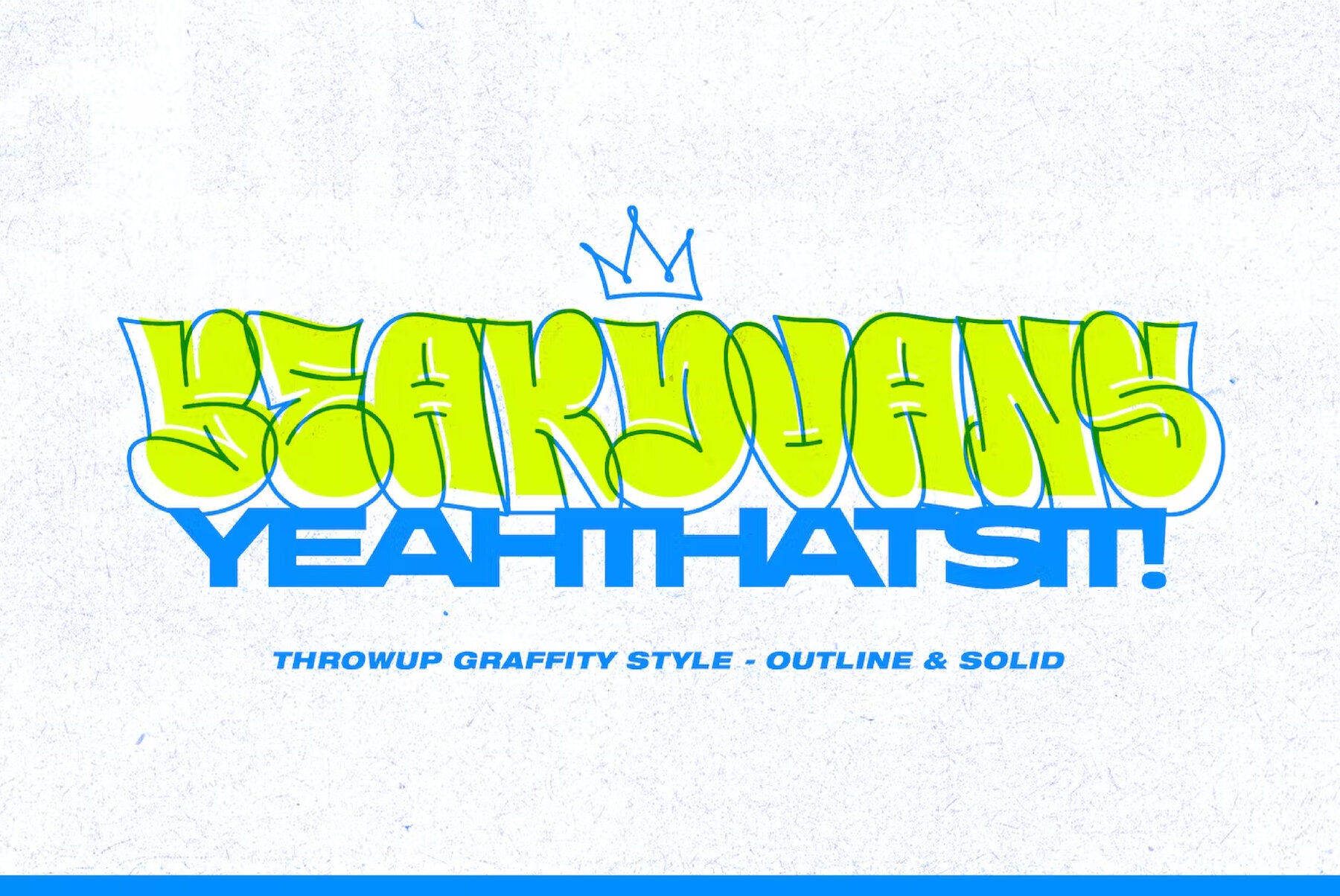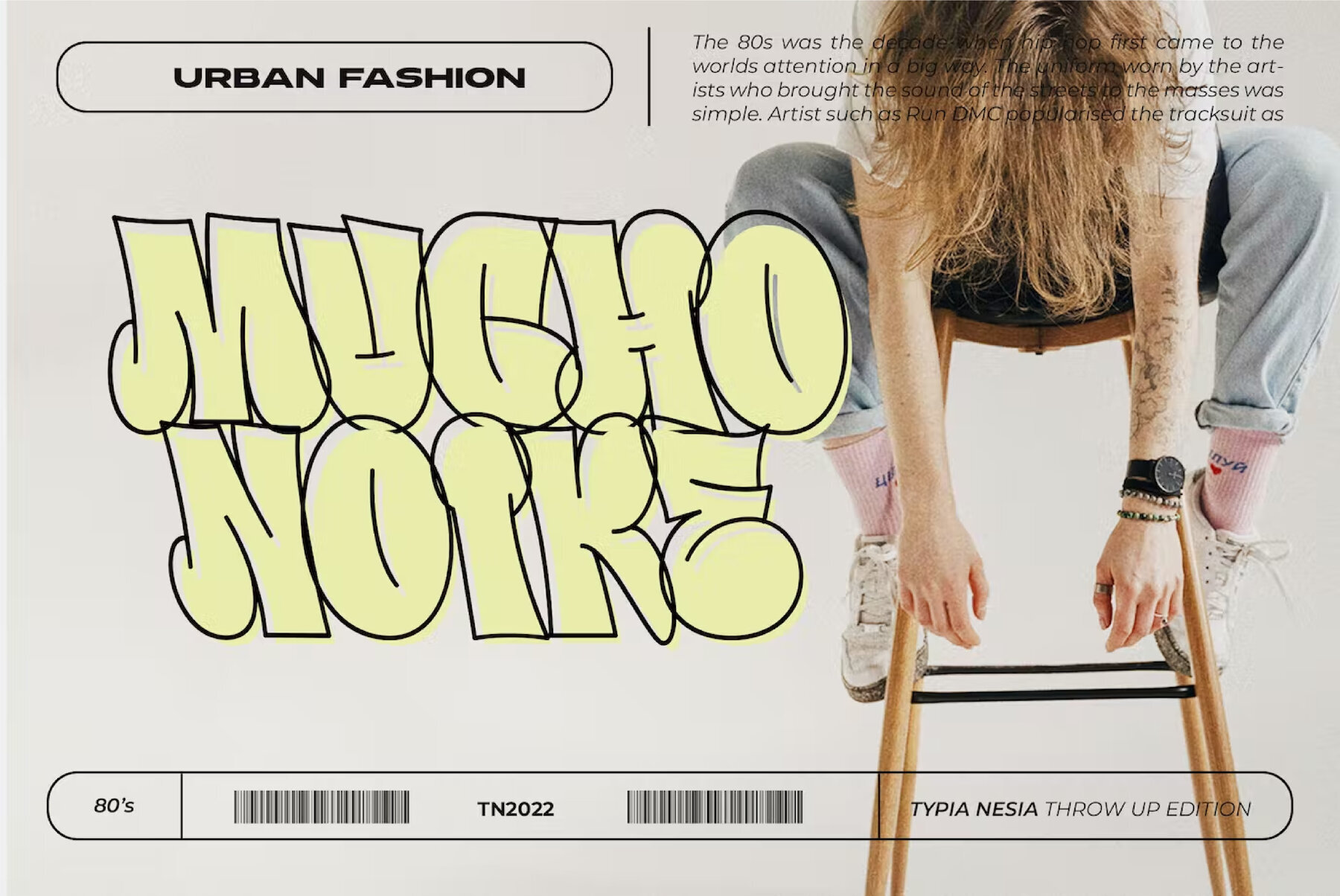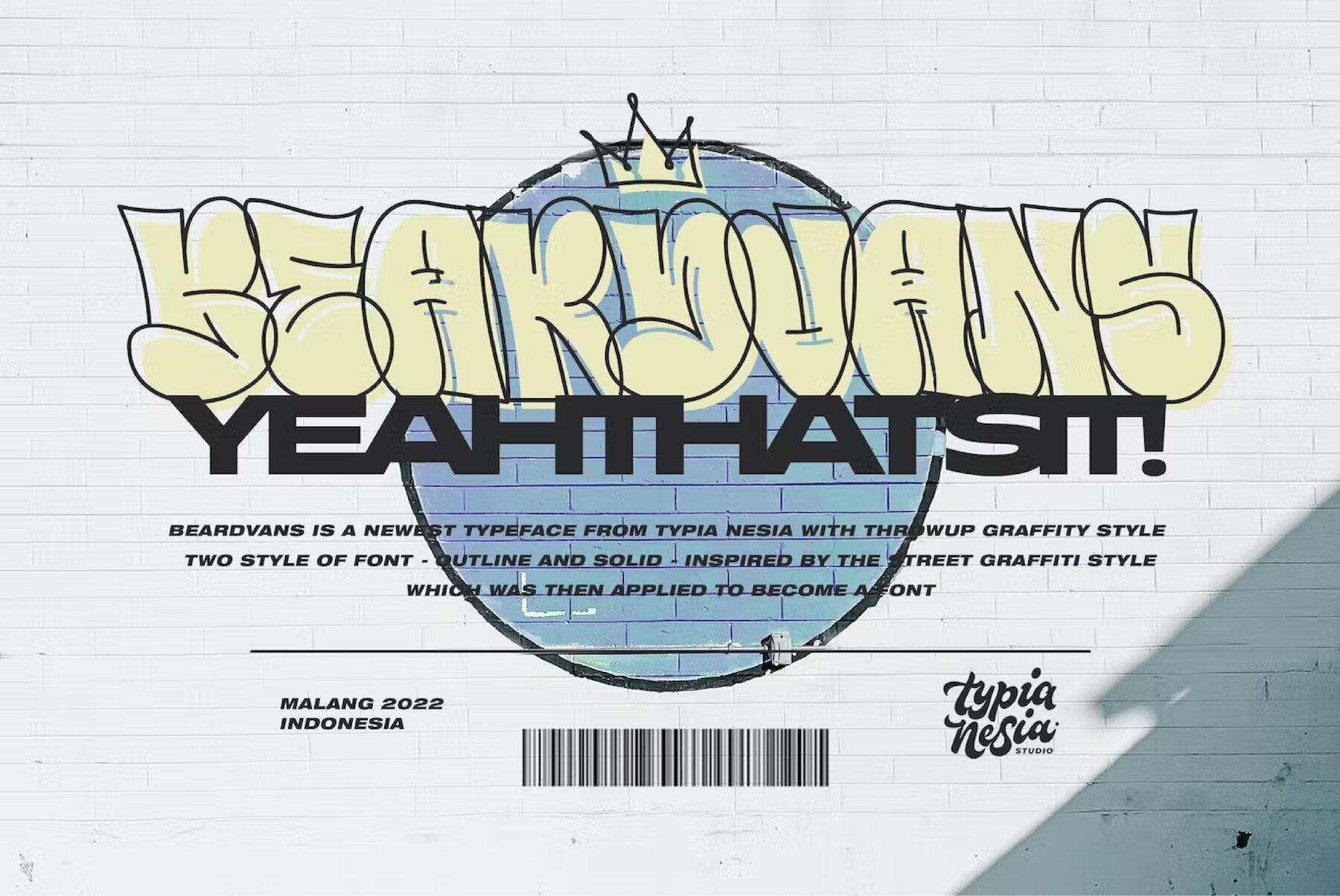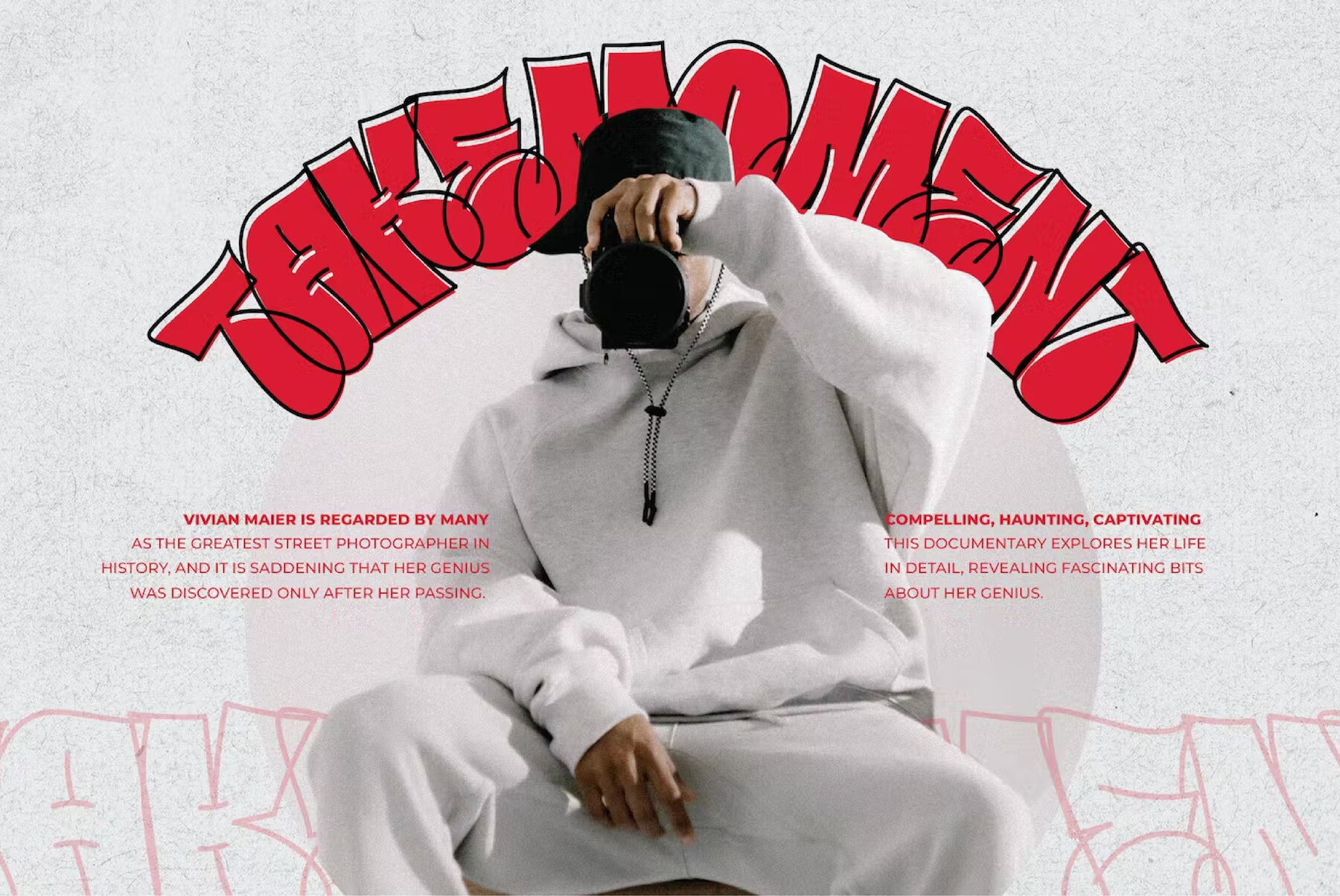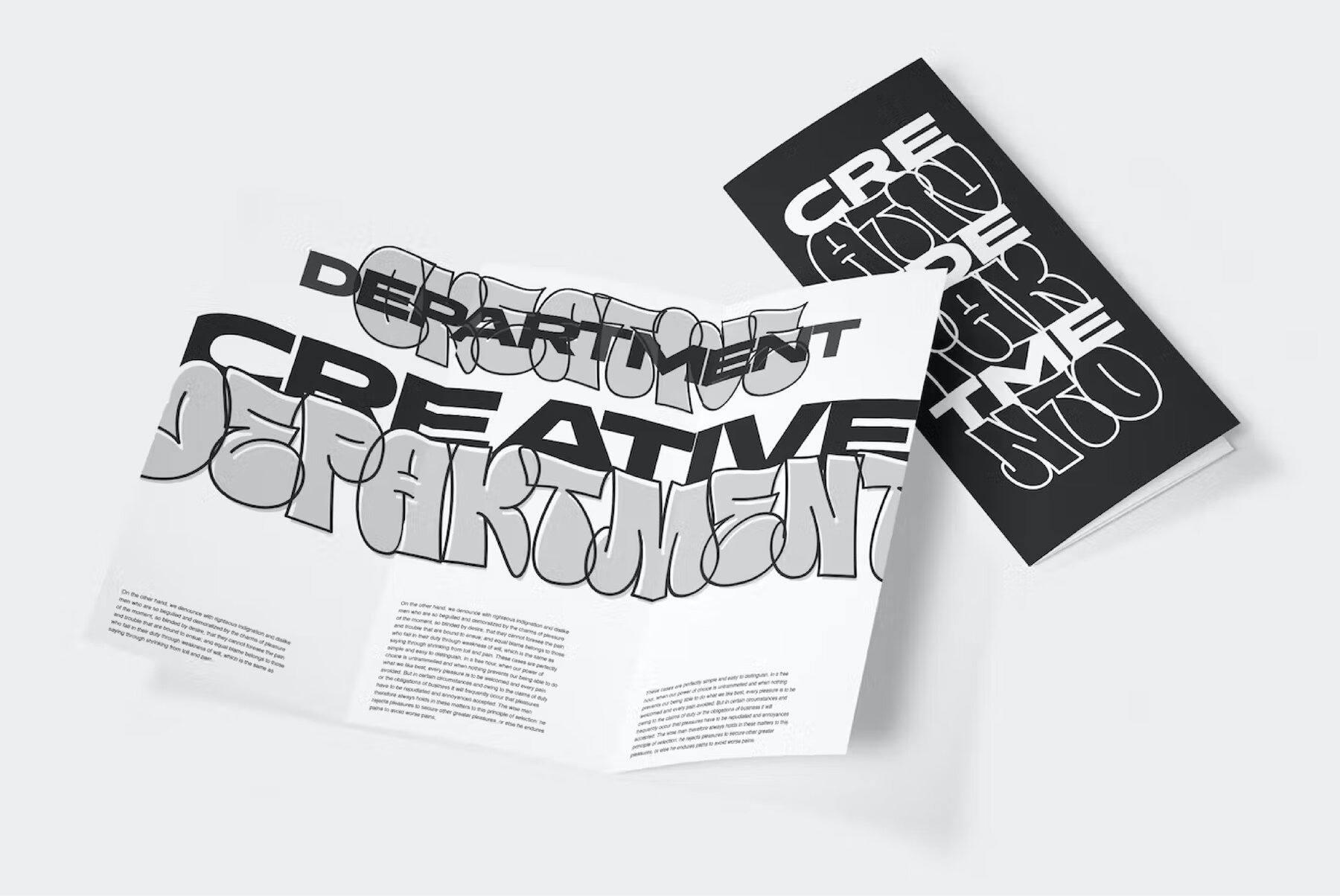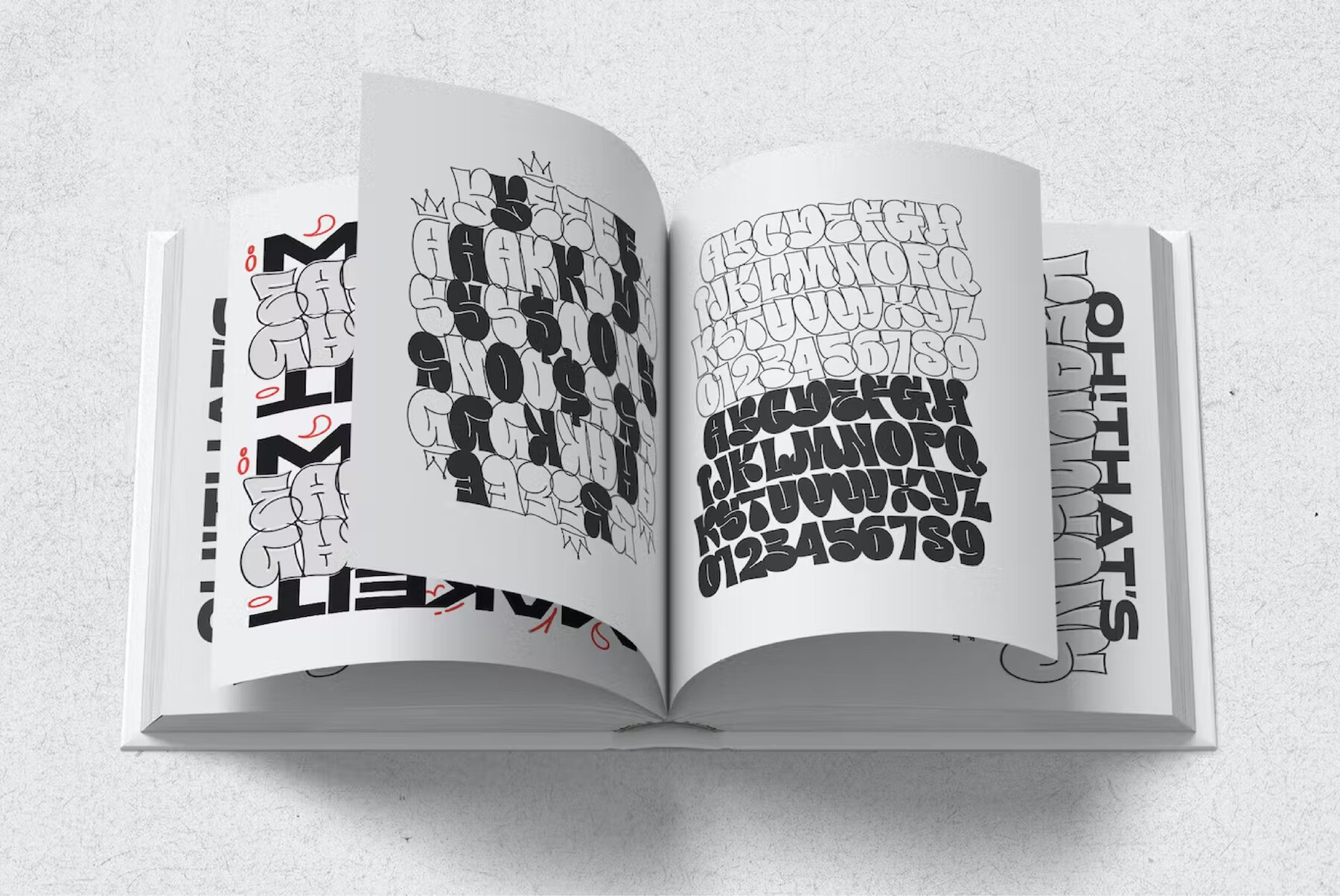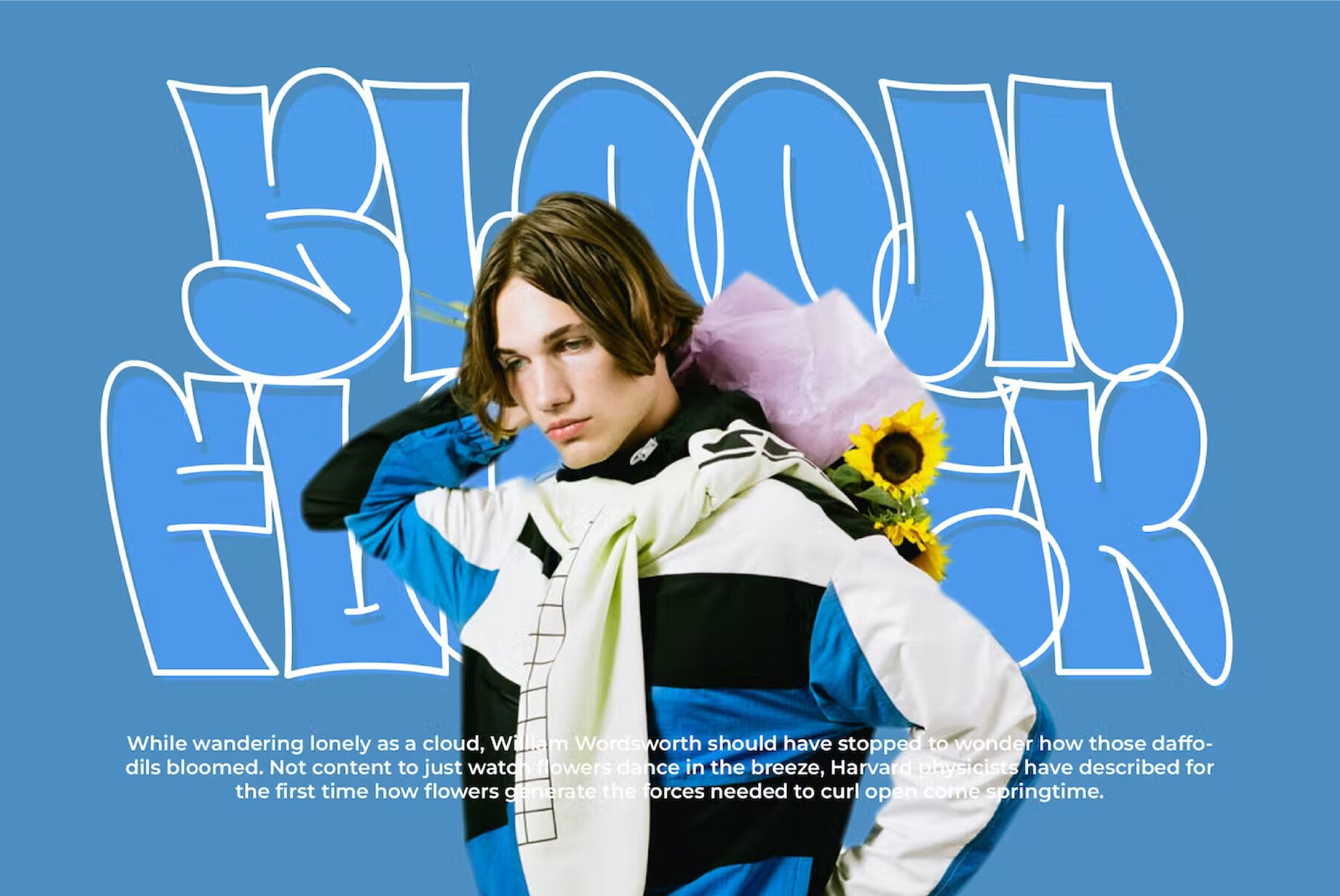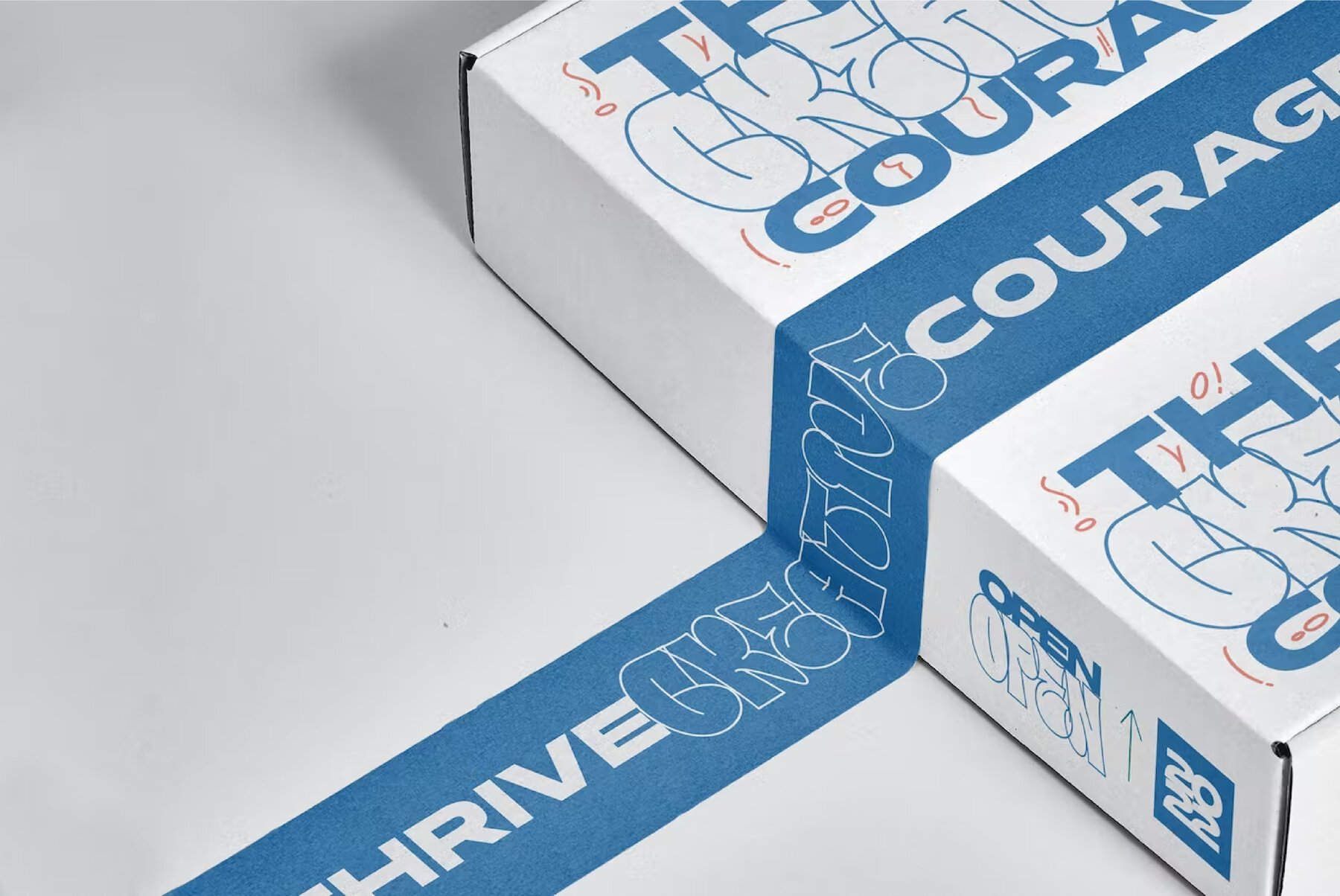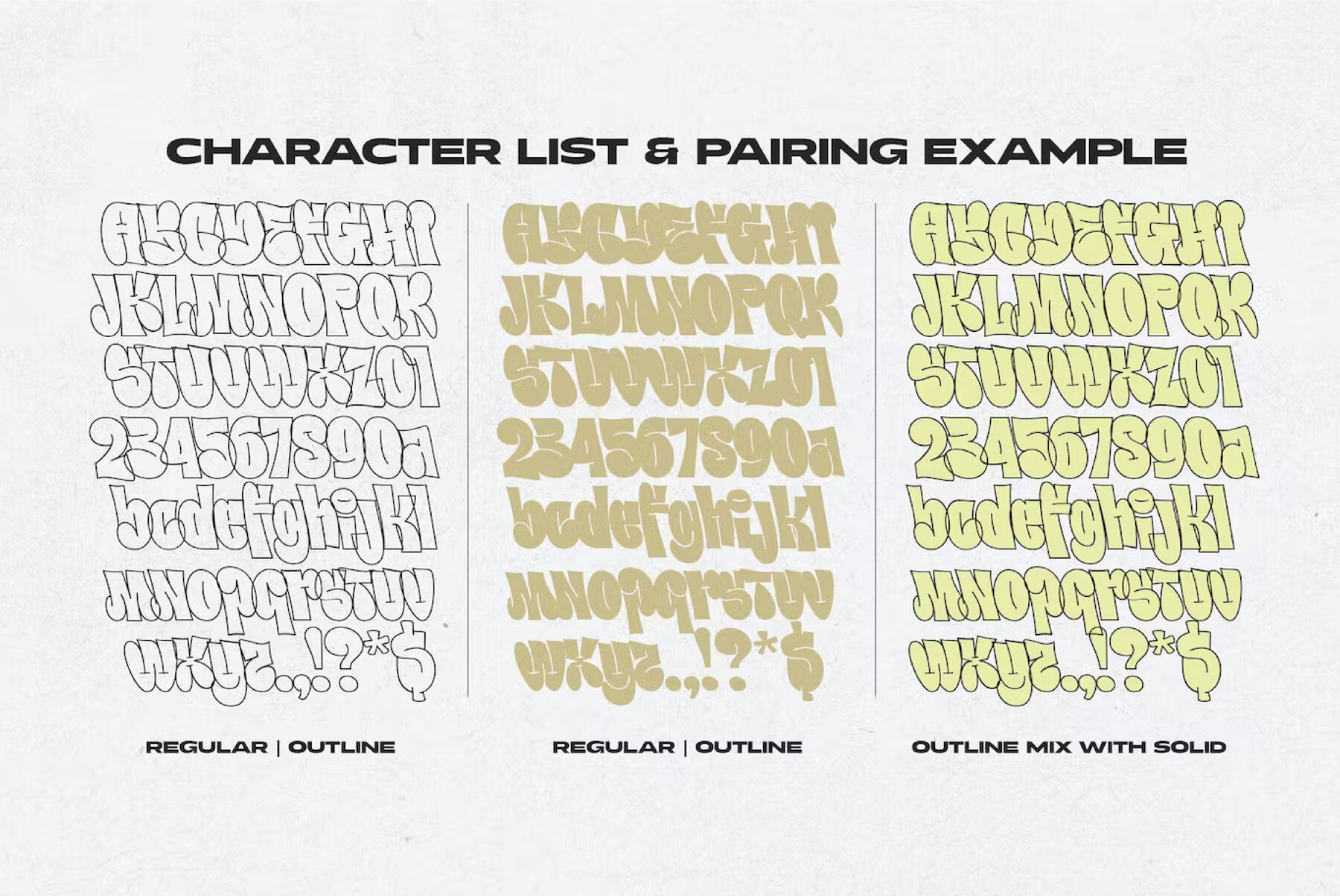
BEARDVANS Font
Embrace the dynamic and expressive character of Beardvans, a font that captures the essence of urban street culture. Perfectly suited for a wide range of applications, this modern throw-up bubble style elevates any project with its bold and playful form.Beardvans: Modern Graffiti-Inspired Font